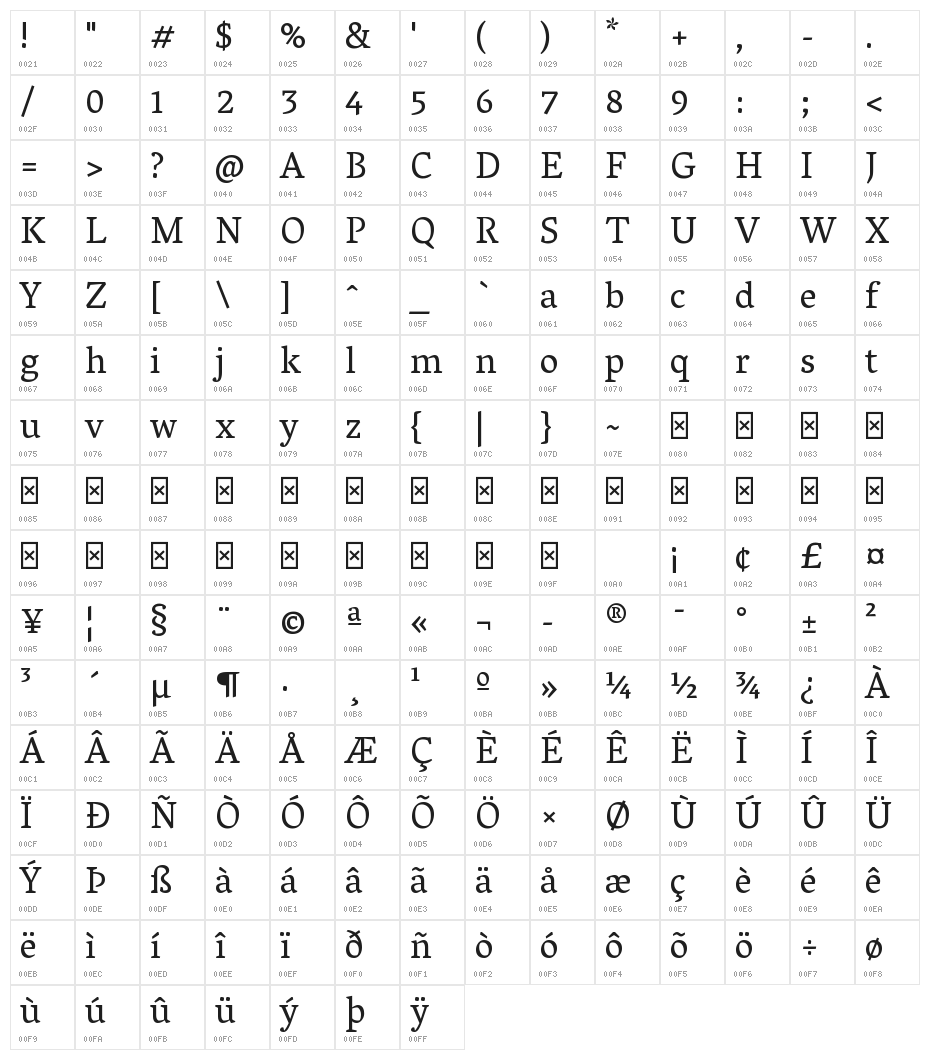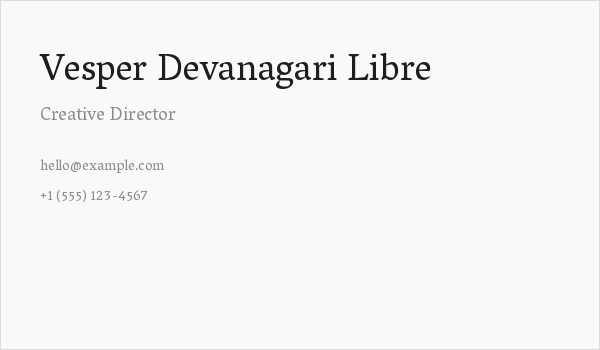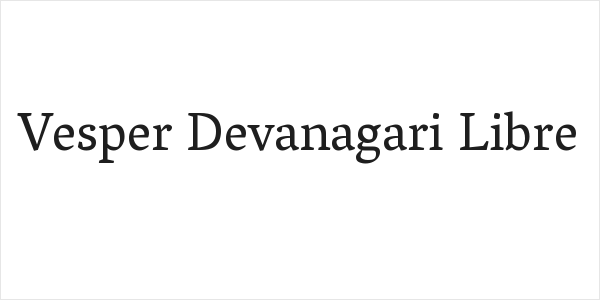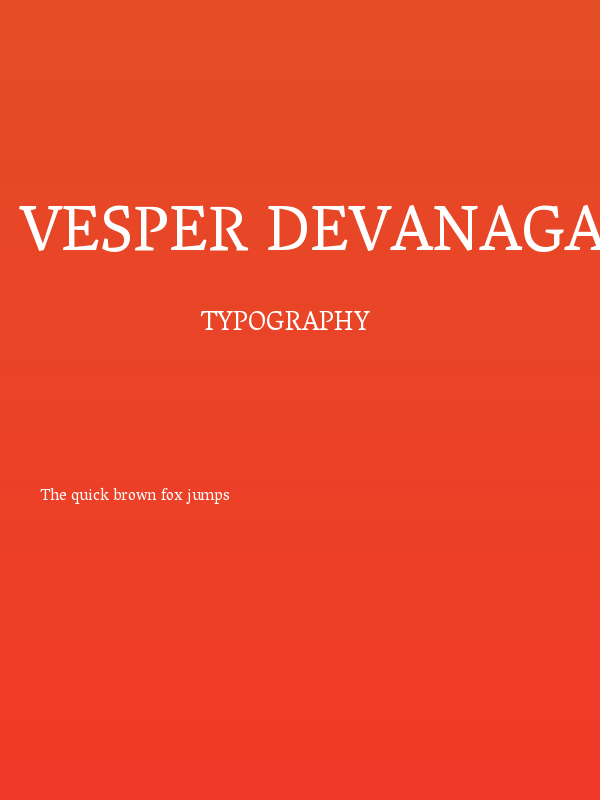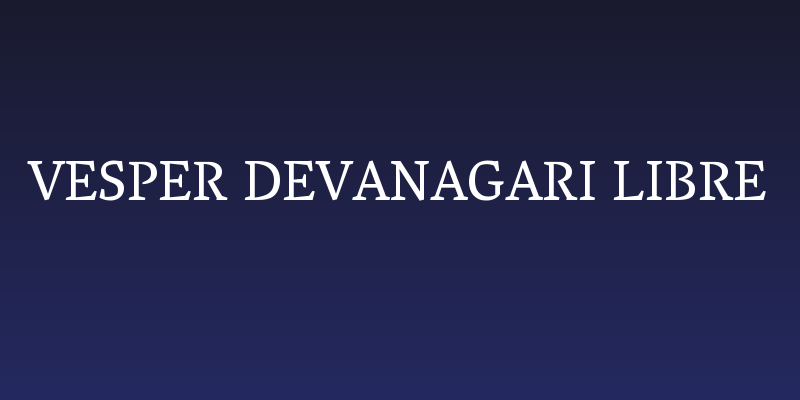
Vesper Devanagari Libre Font
Vesper Devanagari Libre Description
This font features a classic serif style with a modern twist, characterized by its elegant and slightly curved serifs. The uppercase letters are bold and commanding, while the lowercase letters maintain a balanced and readable form. The numerals are clear and distinct, making them suitable for both text and display purposes. Special characters are well-defined, adding versatility to the font's use. The overall design is both timeless and contemporary, making it suitable for a variety of applications.
| Proposed Projects | Ideal for editorial design, book covers, formal invitations, and branding projects that require a touch of sophistication. |